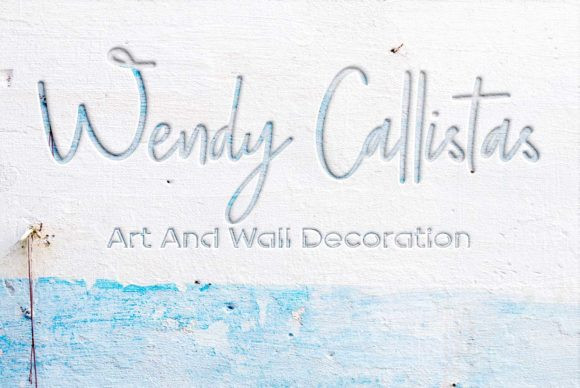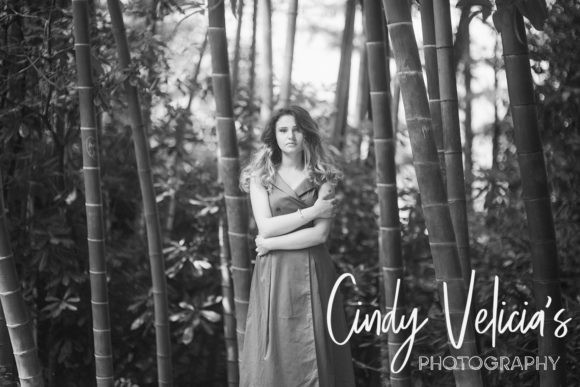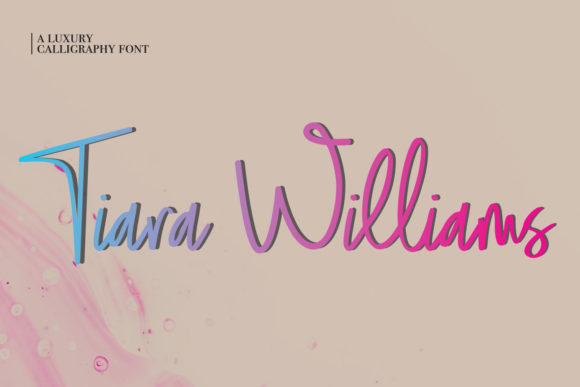
Tiara Williams Font
Tiara Williams is a script font with relaxed style and carries the impression of luxury. Great for adding joyfulness to a variety of design projects!